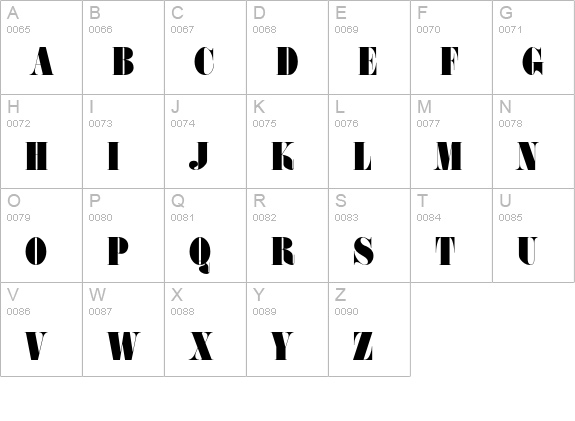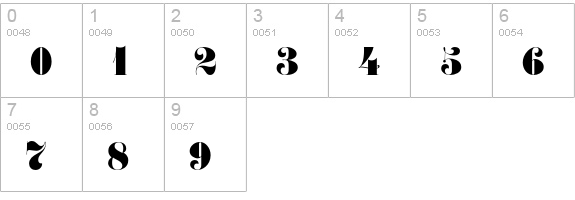
ITC Fat Face Cyrillic font is a stunning and elegant typeface that exudes sophistication and charm. With its bold and eye-catching appearance, this font is perfect for making a statement in your designs. The Cyrillic characters add a touch of uniqueness and versatility to this already striking font. And the best part? ITC Fat Face Cyrillic font is completely free to download at FontsMarket.com. So you can add this beautiful typeface to your collection without any cost. Whether you're working on a branding project, poster design, or any other creative endeavor, ITC Fat Face Cyrillic font will definitely make your text stand out and leave a lasting impression. Don't miss out on this fantastic opportunity to enhance your designs with this exceptional font.